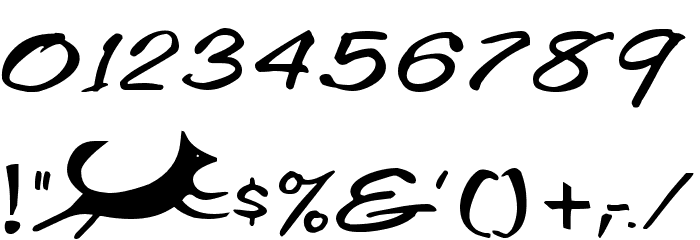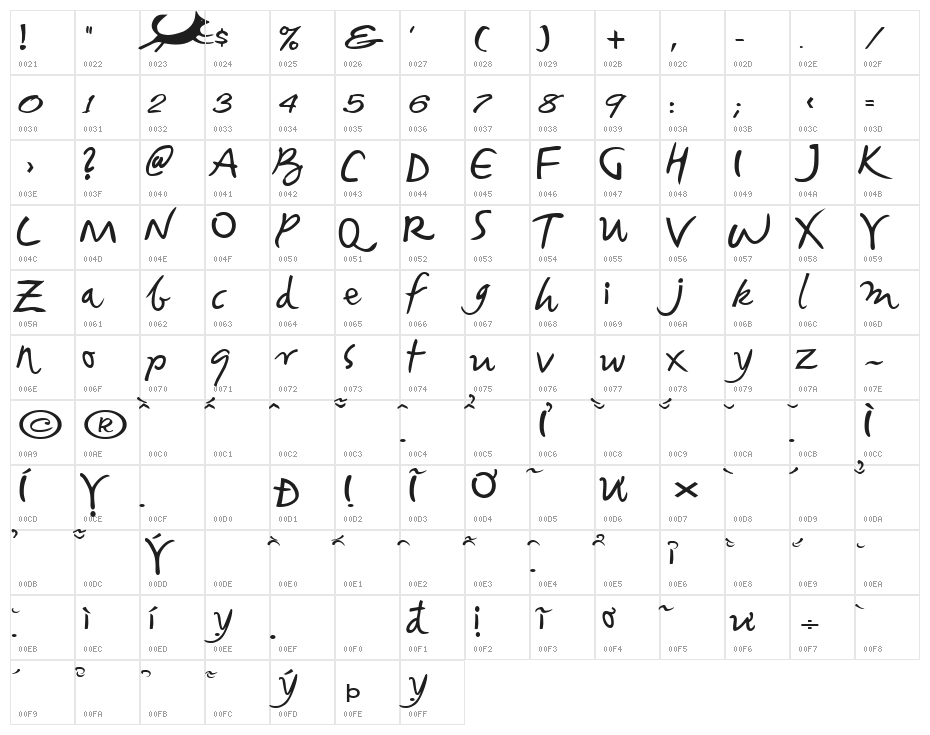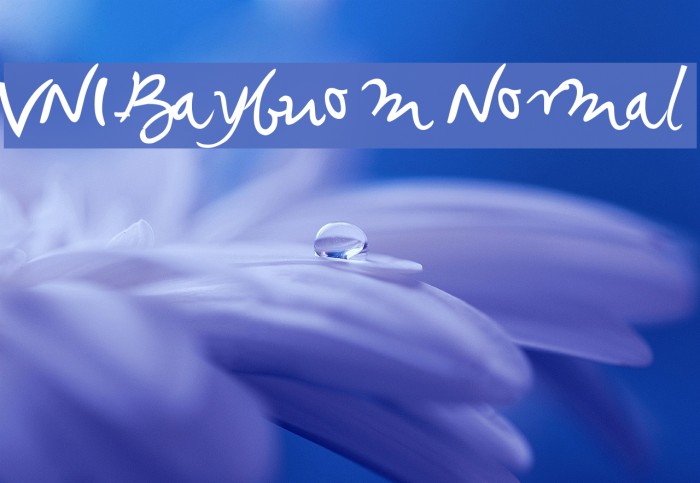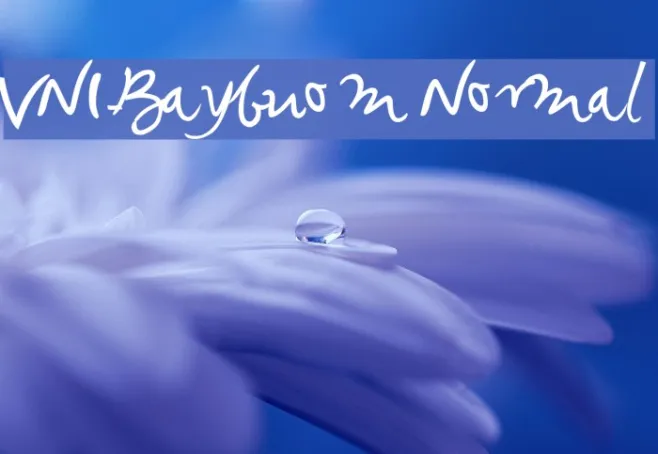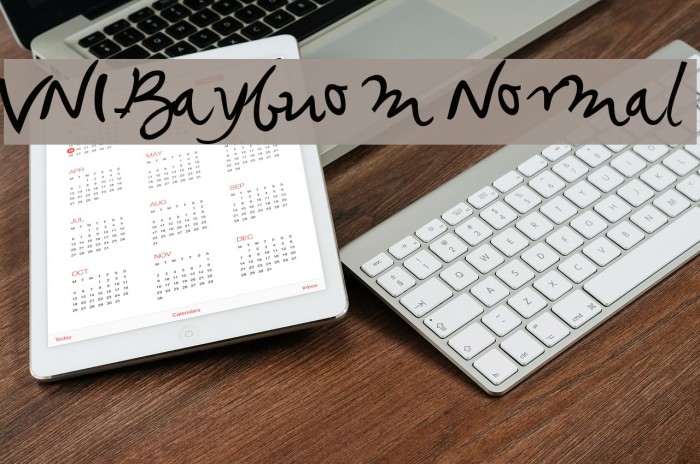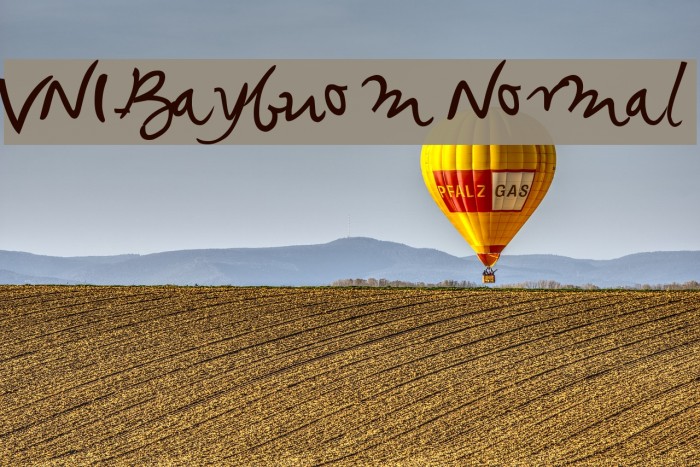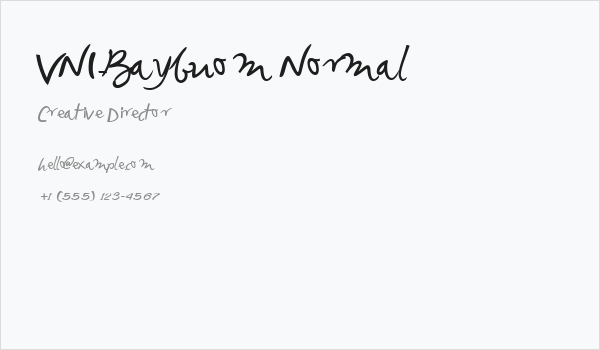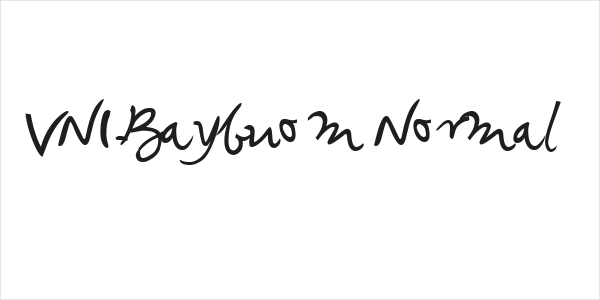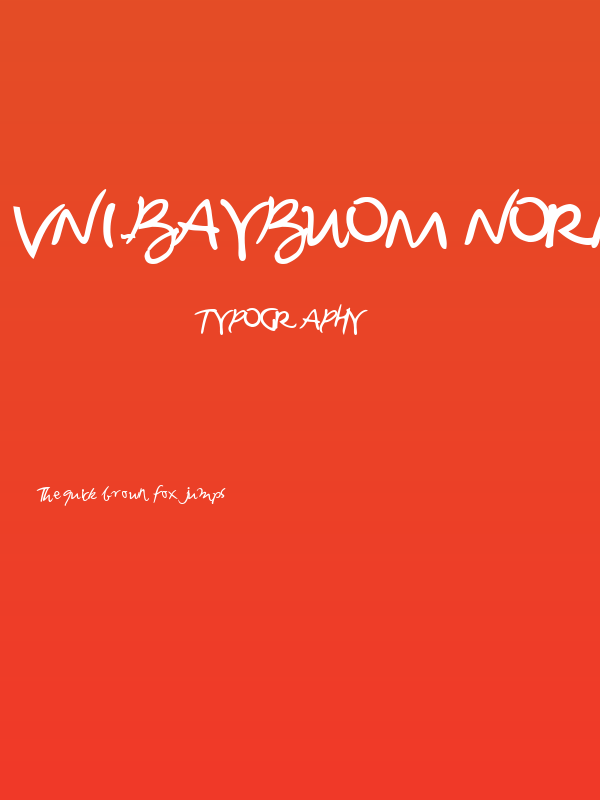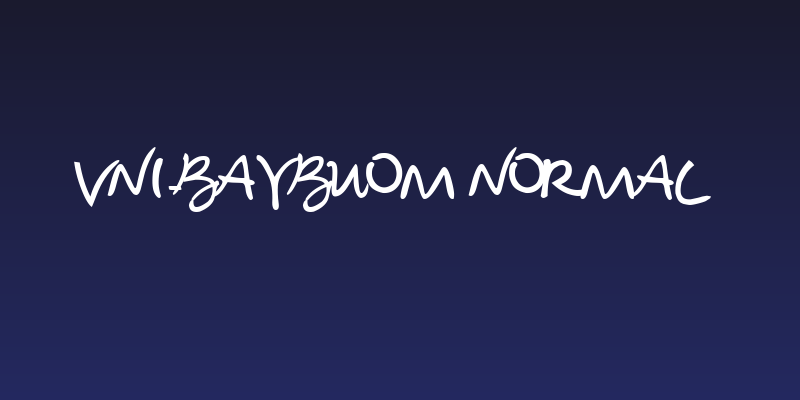
VNI-Baybuom Normal Font
VNI-Baybuom Normal Description
This font exhibits a dynamic and energetic handwritten style, characterized by its fluid and slightly irregular strokes. The letters have a playful and casual appearance, with varying thickness that adds a sense of movement and personality. The uppercase letters are bold and prominent, while the lowercase letters maintain a consistent flow, enhancing readability. The numerals and special characters are crafted with the same lively spirit, making them stand out. This font's unique style is ideal for projects that require a personal touch or an informal tone.
| Proposed Projects | Ideal for greeting cards, invitations, personal branding, and creative projects that require a personal or informal touch. |